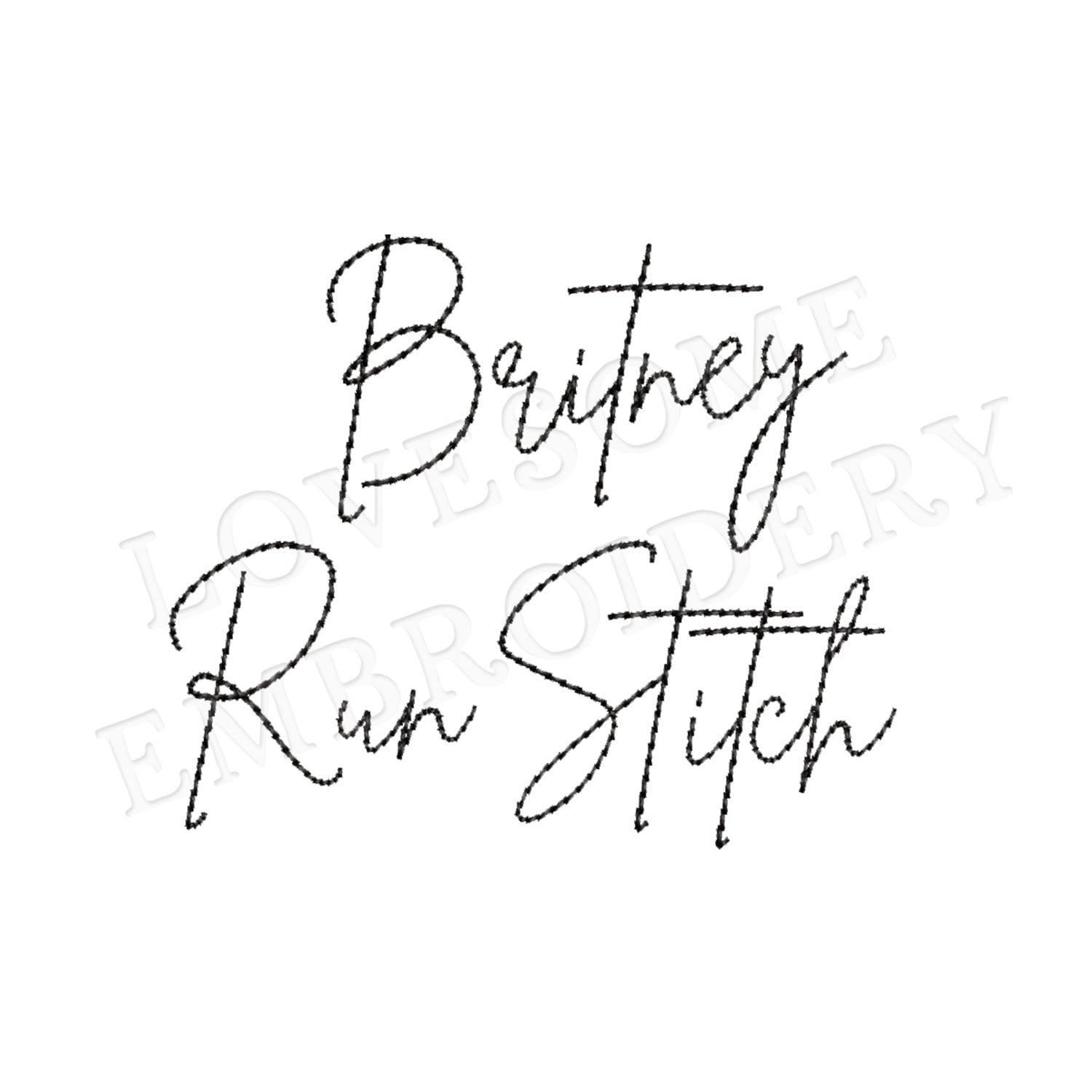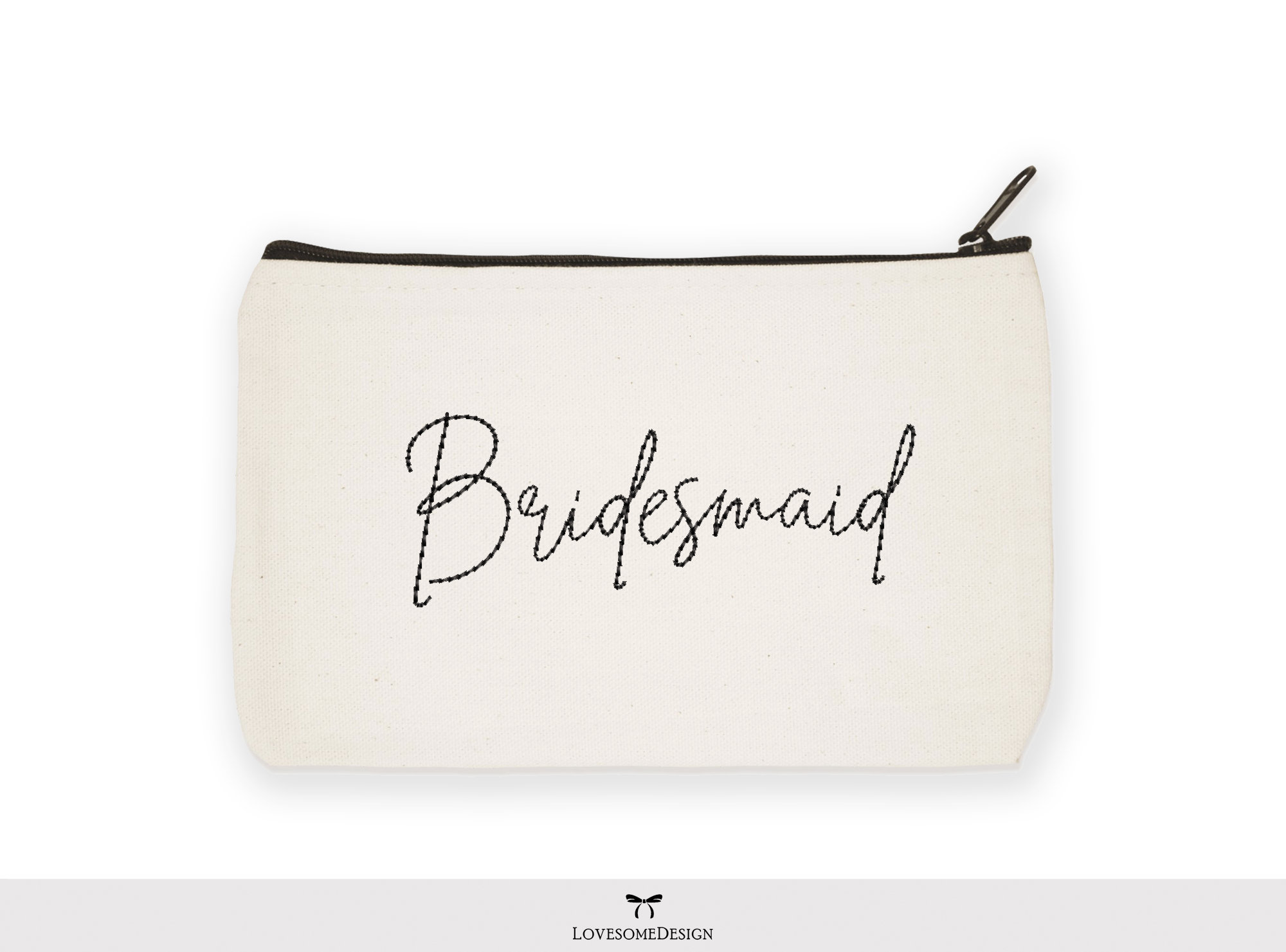
Britney Script 0.5inch Bean Stitch Font A-Z, Cursive Run Stitch Font, Machine Embroidery Font Digital Download | Lovesome Design
This listing features a machine embroidery font set which includes bean stitch embroidery files of 26 uppercase and 26 lowercase letters in 0.5inch size. (For the whole set, pls see the listing images.)